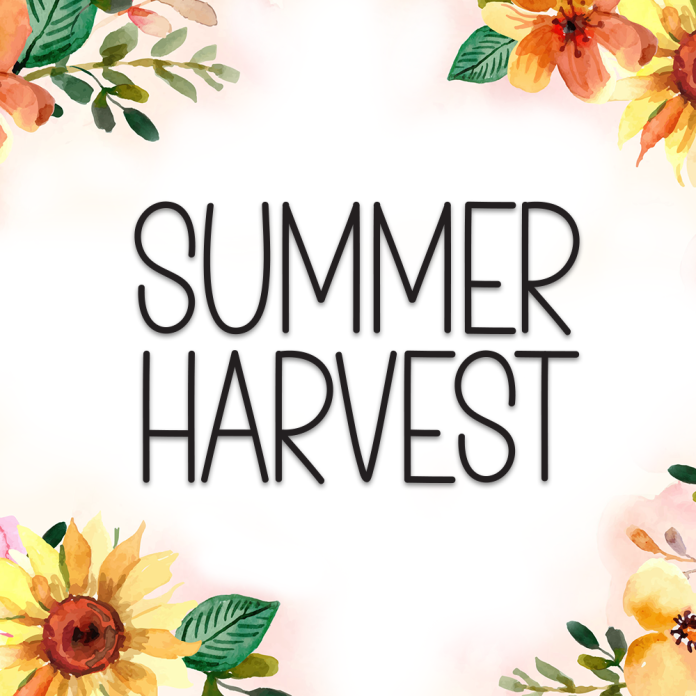
Summer Harvest is a bold and cheerful display font inspired by the warmth of sunny days and the abundance of summer. Its playful letterforms make it perfect for eye-catching headlines, seasonal promotions, and fun branding projects.
Bold and vibrant display style
Ideal for posters, product labels, and summer-themed designs
Playful shapes with a friendly personality
Includes uppercase, lowercase, numbers, and punctuation
Supports multiple languages
Bring the joyful spirit of summer into your designs with Summer Harvest.